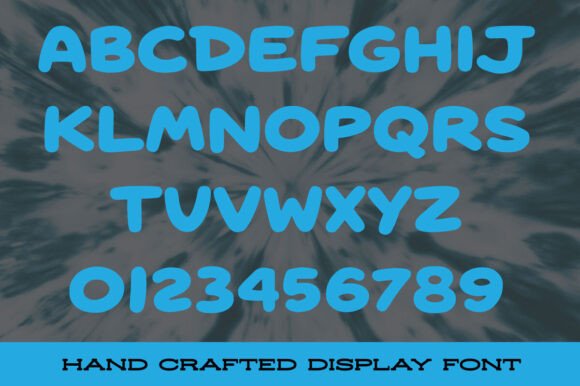
Introducing Badonkee Font: The Ultimate Choice for Fun and Playful Designs
In the world of typography, fonts play a crucial role in conveying the tone and personality of a design. Whether you’re creating a logo, poster, or product label, the right font can make all the difference. If you’re looking for a font that bursts with energy and humor, look no further than Badonkee. This bold, bouncy, and wildly fun font is perfect for cartoons, comics, kids’ designs, and anything that needs a dose of playfulness.
What is Badonkee Font?
Badonkee is a chunky, rounded font with a unique and playful style. Its soft yet hefty design ensures readability while keeping things delightfully goofy. The font features playful curves and slightly exaggerated forms, making it perfect for designs that require a lighthearted touch.
Perfect for Playful Designs
Badonkee is an incredibly versatile font that can be used in a variety of design projects. Here are some ideas to get you started:
- Cartoon and comic designs: Badonkee’s playful style is perfect for cartoons and comics. Its bold and bouncy curves bring characters to life and add a touch of humor to your designs.
- Kids’ designs: The font’s soft and rounded style makes it ideal for kids’ designs, such as children’s books, posters, and product labels.
- Quirky logos: Create a memorable logo with Badonkee’s unique and playful style. The font is sure to grab attention and leave a lasting impression.
- Eye-catching posters: Add a dose of energy and humor to your posters with Badonkee. The font’s bold and playful curves are sure to grab attention.
- Lively product labels: Make your product labels stand out with Badonkee’s fun and playful style. The font is perfect for products that require a lighthearted and humorous approach.
Key Features of Badonkee Font
So, what makes Badonkee font so special? Here are some of its key features:
- Bold and bouncy curves: Badonkee’s bold and bouncy curves add a touch of energy and humor to your designs.
- Playful and exaggerated forms: The font’s playful and exaggerated forms make it perfect for designs that require a lighthearted touch.
- Soft yet hefty design: Badonkee’s soft yet hefty design ensures readability while keeping things delightfully goofy.
- Chunky and rounded style: The font’s chunky and rounded style makes it perfect for designs that require a bold and playful approach.
Tips and Tricks for Using Badonkee Font
Here are some tips and tricks to help you get the most out of Badonkee font:
- Use it sparingly: While Badonkee is a fun and playful font, it’s best to use it sparingly. Use it for headlines or titles, and pair it with a simpler font for body text.
- Experiment with colors: Badonkee looks great in bold and bright colors. Experiment with different colors to add a pop of fun to your designs.
- Pair it with other fonts: Badonkee can be paired with other fonts to create a unique and playful combination. Try pairing it with a sans-serif font for a fun and modern look.
Get Ready to Make Some Noise with Badonkee Font
In conclusion, Badonkee font is the ultimate choice for fun and playful designs. Its bold, bouncy, and wildly fun style is perfect for cartoons, comics, kids’ designs, and anything that needs a dose of humor and energy. With its soft yet hefty design, playful curves, and slightly exaggerated forms, Badonkee delivers a lighthearted punch with every letter. So, get ready to make some noise and bring the fun with Badonkee font!